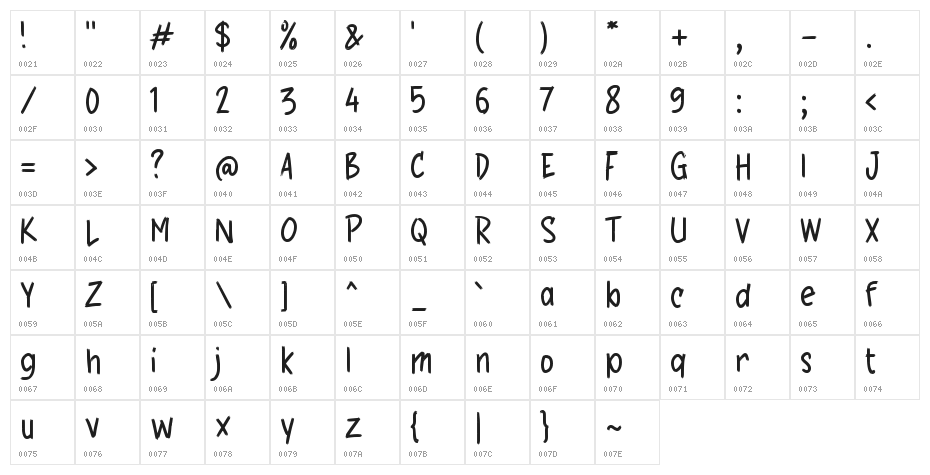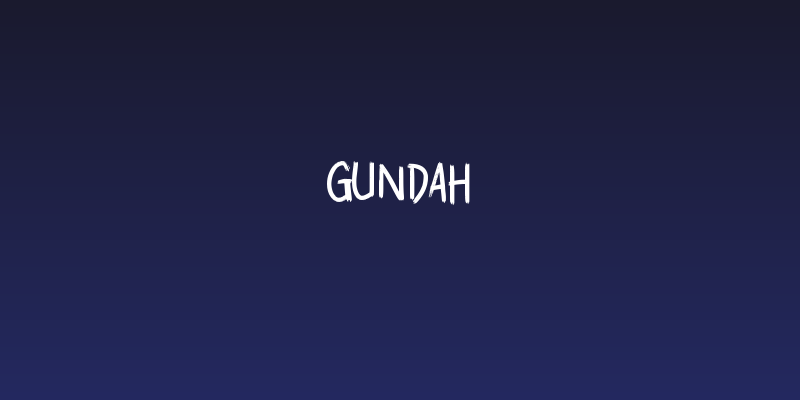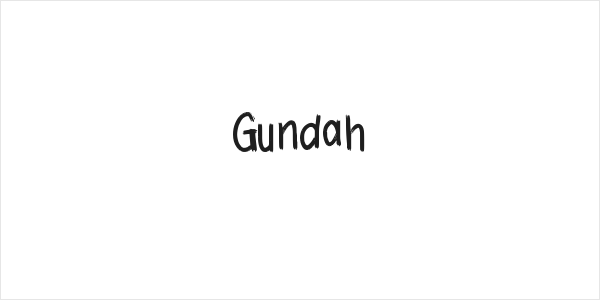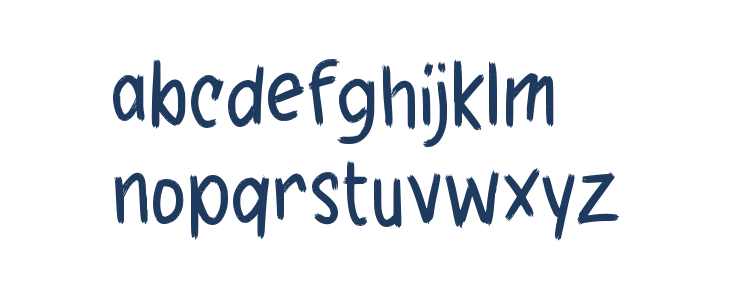
Gundah Font
Gundah Description
This font features a bold, hand-drawn style with a playful and energetic appearance. The strokes are thick and uneven, giving it a casual and artistic feel. The uppercase and lowercase letters maintain a consistent style, with slightly exaggerated curves and angles that add to its dynamic look. Numbers and special characters are equally bold and expressive, making them stand out. The overall design is informal and lively, suitable for projects that require a personal touch or a creative flair.